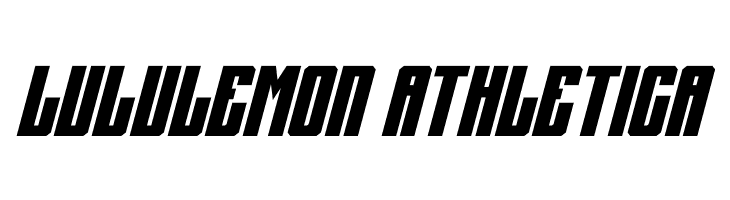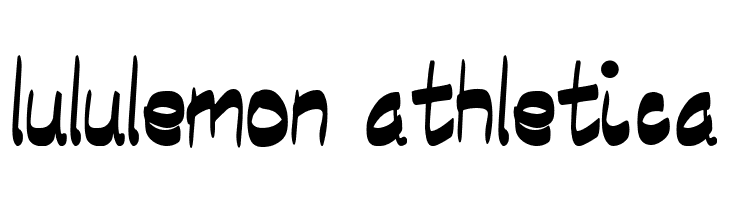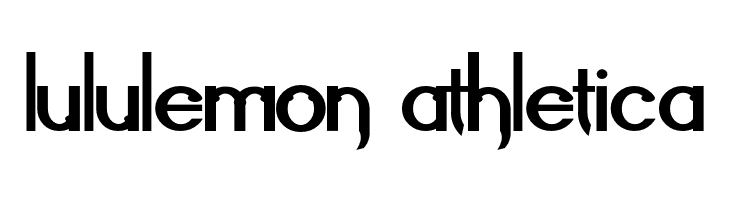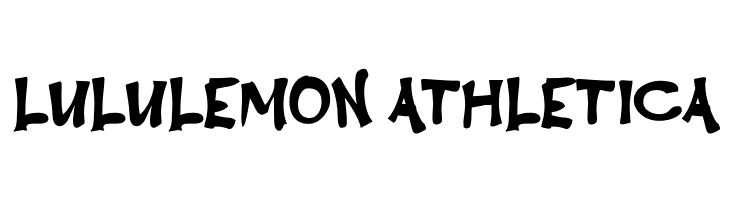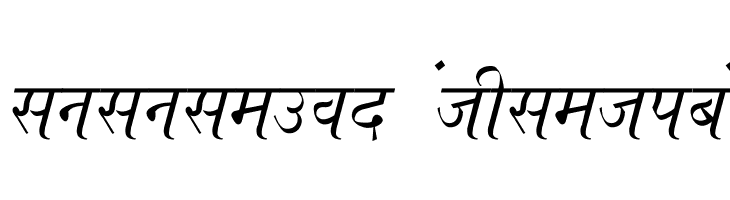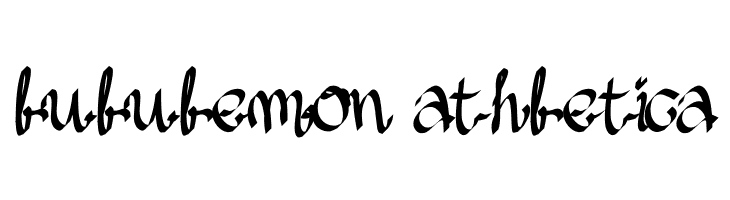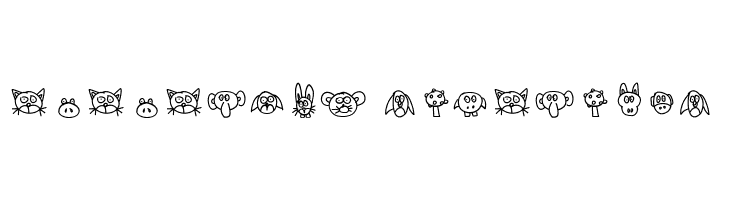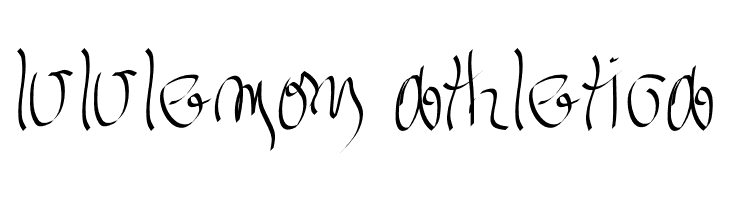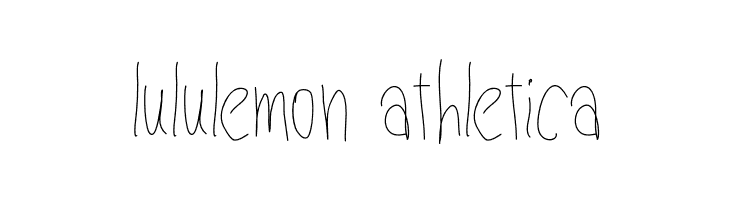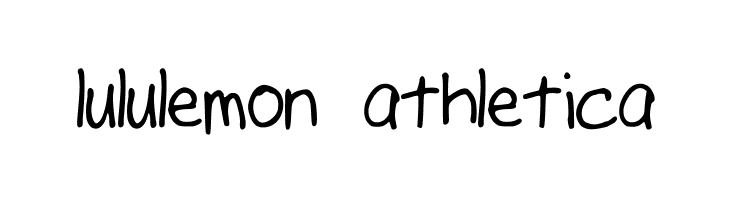
A playful, bold font with exaggerated, rounded shapes and a whimsical style.
A geometric, monospaced font with a digital, tech-inspired aesthetic.
A modern, rounded font with a playful and bold style.
A fluid and elegant script font with dynamic cursive letterforms.
An elegant and flowing script font with graceful curves and decorative flourishes.
A lively, handwritten font with a casual and friendly style.
An elegant, flowing script font with intricate loops and swirls.
A playful, handwritten font with fluid strokes and a modern artistic flair.
A bold, cursive font with decorative swirls and high contrast.
An elegant script font with flowing, cursive style and intricate flourishes.
A playful, casual handwritten font with smooth, rounded edges.
A bold, geometric font with a modern stencil-like appearance.
An elegant, flowing script font with a handwritten aesthetic.
An elegant, flowing script font with ornate uppercase and connected lowercase letters.
An elegant script font with flowing curves and decorative swirls.
An ornate, swashed font with elaborate decorative elements.
A bold, handwritten font with dynamic strokes and playful contrast.
A graceful and elegant script font with flowing, interconnected letters.
An elegant, flowing script font with smooth, cursive strokes.
A bold, modern font with geometric cuts and high contrast.
An elegant cursive font with ornate uppercase and smooth lowercase letters.
An elegant script font with flowing, intricate loops and high contrast strokes.
A whimsical, hand-drawn font with tall, narrow characters and playful details.
A bold, slanted font with a dynamic and modern style.
A bold, playful script font with a hand-drawn, energetic style.
A bold, playful handwritten font with a dynamic and energetic feel.
A bold, 3D geometric font with shadowed outlines for a striking effect.